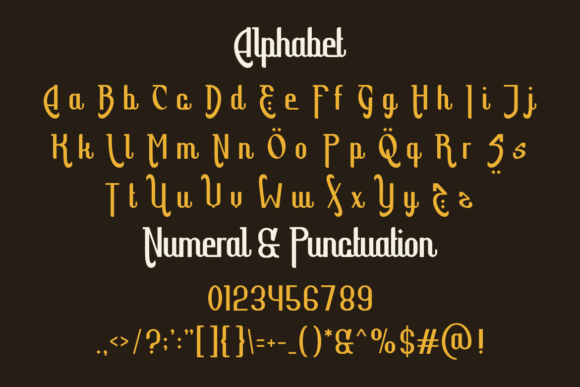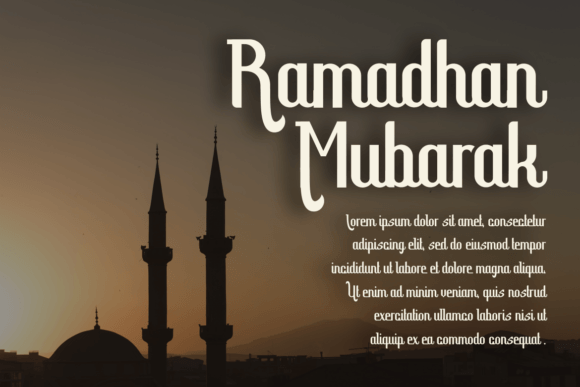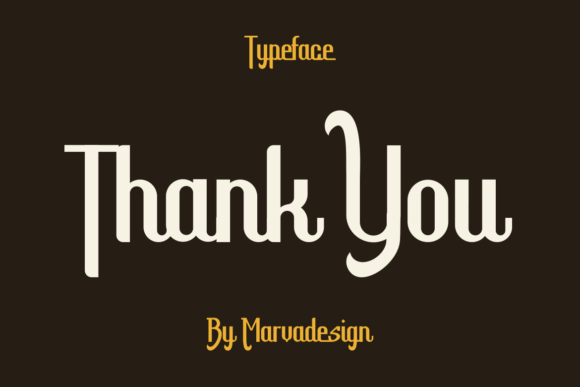
Discover the Elegance of Al Kuffi Font: A Perfect Blend of Arabic Calligraphy and Modern Design
Are you a designer or crafter looking for a unique and sophisticated font to elevate your projects? Look no further than Al Kuffi Font, an Arabic-style font that embodies the perfect blend of traditional calligraphy and modern design. With its bold strokes, elegant curves, and exotic charm, Al Kuffi is an excellent choice for a wide range of applications, from branding and advertising to print materials and digital content.
The Inspiration Behind Al Kuffi Font
Al Kuffi Font draws inspiration from the rich and beautiful world of Arabic calligraphy. The font’s creator aimed to capture the essence of this ancient art form, with its intricate lettering and flowing curves. The result is a font that exudes elegance, sophistication, and a deep sense of cultural heritage. Whether you’re looking to create a logo, brochure, or website, Al Kuffi Font is sure to add a touch of refinement and luxury to your design.
Key Features of Al Kuffi Font
So, what makes Al Kuffi Font so special? Here are some of its key features:
- Elegant and Sophisticated: Al Kuffi Font is characterized by its bold strokes, elegant curves, and flowing lines. These features create a sense of movement and flow, making the font perfect for a wide range of applications.
- Unique and Exotic: Al Kuffi Font has a distinctive and exotic appearance that sets it apart from more traditional fonts. Its unique charm can add a sense of culture and artistry to any project, making it a popular choice for designers and crafters.
Applications of Al Kuffi Font
Al Kuffi Font is an incredibly versatile font that can be used in a wide range of applications, including:
- Branding and Advertising: Create a memorable and distinctive brand identity with Al Kuffi Font. Its elegant and sophisticated appearance makes it perfect for logos, business cards, and other marketing materials.
- Print Materials: Use Al Kuffi Font to add a touch of luxury and refinement to your print materials, such as brochures, flyers, and posters.
- Digital Content: Al Kuffi Font is also perfect for digital content, including website designs, social media graphics, and email marketing campaigns.
Why Choose Al Kuffi Font?
So, why should you choose Al Kuffi Font for your next project? Here are just a few reasons:
- Unique and Memorable: Al Kuffi Font has a distinctive and exotic appearance that will set your project apart from the competition.
- Elegant and Sophisticated: The font’s elegant and sophisticated appearance makes it perfect for a wide range of applications, from branding and advertising to print materials and digital content.
In conclusion, Al Kuffi Font is an excellent choice for designers and crafters looking to add a touch of elegance and sophistication to their projects. With its unique and exotic appearance, elegant curves, and bold strokes, Al Kuffi Font is sure to make a lasting impression. So why not give it a try and see the difference it can make in your next project?